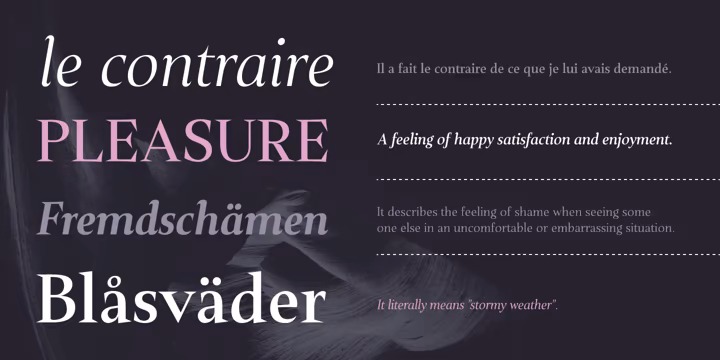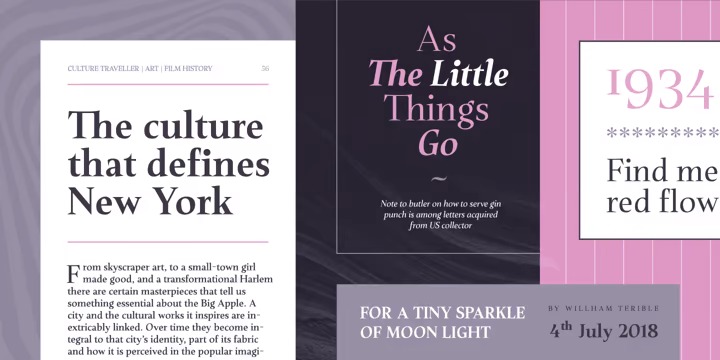
Plaisir Font Family
Plaisir Serif Font
This is a beautiful warm serif font family of 10 fonts. It’s carefully designed to be your excellent choice for a serif typeface. With sharp triangle serifs and wide endings, Plaisir was constructed with decent stem contrast that flirt with display category. It is versatile, legible, recognizable family with fluent Italics.
Equipped with Standard Ligatures, Tabular Figures, OldStyle Figures, a few Stylistic Alternates, basic Ordinals and Latin Small Caps, Plaisir is a working horse that will suit in any required situations.